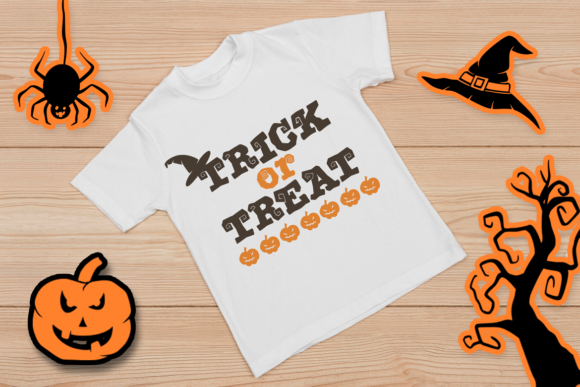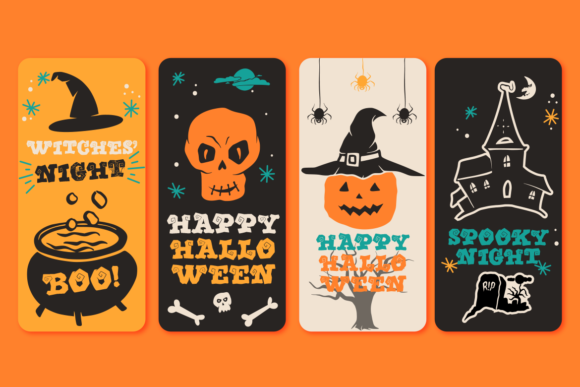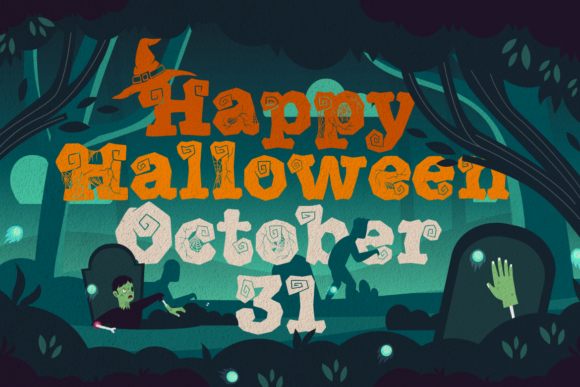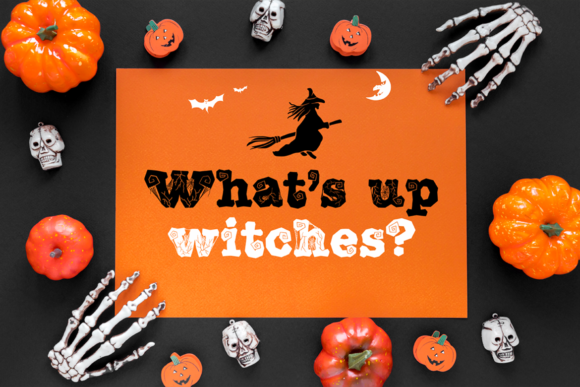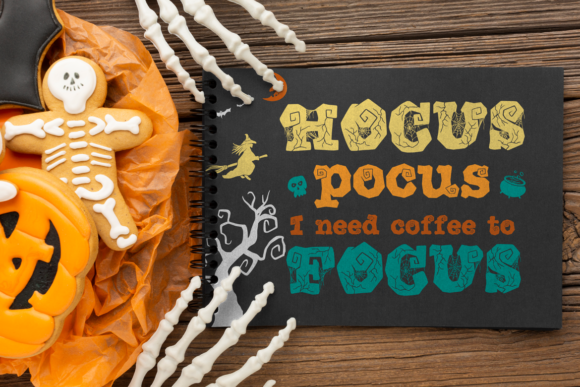
Unleash the Creepiness: Discover the Creepy Spiders Font
Are you a designer or crafter looking for a unique and spooky font to add to your creations? Look no further than the Creepy Spiders Font. This cool and creepy decorative font is sure to send shivers down the spine of your audience. In this article, we’ll dive into the features and benefits of the Creepy Spiders Font and explore how you can use it to elevate your designs.
What is Creepy Spiders Font?
Creepy Spiders Font is a decorative font designed to evoke a sense of spookiness and eeriness. With its intricate and creepy design, this font is perfect for Halloween-themed projects, horror-inspired designs, and any other creation that requires a touch of macabre. The font is PUA encoded, which means you can access all of the glyphs and swashes with ease, giving you complete creative control over your designs.
Features of Creepy Spiders Font
- PUA Encoding: The Creepy Spiders Font is PUA encoded, allowing you to access all of the glyphs and swashes with ease. This means you can mix and match different characters to create unique and intricate designs.
- Creepy and Spooky Design: The font features an intricate and creepy design that’s sure to send shivers down the spine of your audience. Perfect for Halloween-themed projects, horror-inspired designs, and more.
- Decorative and Versatile: The Creepy Spiders Font is a decorative font that’s perfect for a variety of design projects, from invitations and greeting cards to posters and social media graphics.
- Easily Accessible: With PUA encoding, you can access all of the glyphs and swashes with ease, making it simple to incorporate into your designs.
Benefits of Using Creepy Spiders Font
So why choose the Creepy Spiders Font for your designs? Here are just a few benefits of using this creepy and cool font:
- Adds a Touch of Spookiness: The Creepy Spiders Font is sure to add a touch of spookiness to your designs, making them stand out from the crowd.
- Increases Creativity: With its intricate design and PUA encoding, the Creepy Spiders Font encourages creativity and experimentation, helping you to push the boundaries of your designs.
- Perfect for Seasonal Designs: The Creepy Spiders Font is perfect for Halloween-themed projects, but it’s also versatile enough to use in other seasonal designs, such as Christmas or Easter.
- Great for Horror-Inspired Designs: If you’re creating horror-inspired designs, the Creepy Spiders Font is a must-have. Its creepy and eerie design is sure to send shivers down the spine of your audience.
How to Use Creepy Spiders Font
Using the Creepy Spiders Font is easy. Here are a few tips to get you started:
- Experiment with Different Glyphs and Swashes: With PUA encoding, you can access all of the glyphs and swashes with ease. Experiment with different combinations to create unique and intricate designs.
- Pair with Other Fonts: The Creepy Spiders Font pairs well with other fonts, such as sans-serif fonts or script fonts. Experiment with different pairings to find the perfect combination for your design.
- Use for Headlines and Titles: The Creepy Spiders Font is perfect for headlines and titles, adding a touch of spookiness and creativity to your designs.
- Add to Your Design Toolkit: The Creepy Spiders Font is a versatile font that can be used in a variety of design projects. Add it to your design toolkit and be prepared to unleash your creativity.
| Author | RochArt |
In conclusion, the Creepy Spiders Font is a cool and creepy decorative font that’s perfect for designers and crafters looking to add a touch of spookiness to their creations. With its PUA encoding and intricate design, this font is sure to inspire creativity and experimentation. Whether you’re creating Halloween-themed projects, horror-inspired designs, or simply looking for a unique font to add to your toolkit, the Creepy Spiders Font is a must-have.